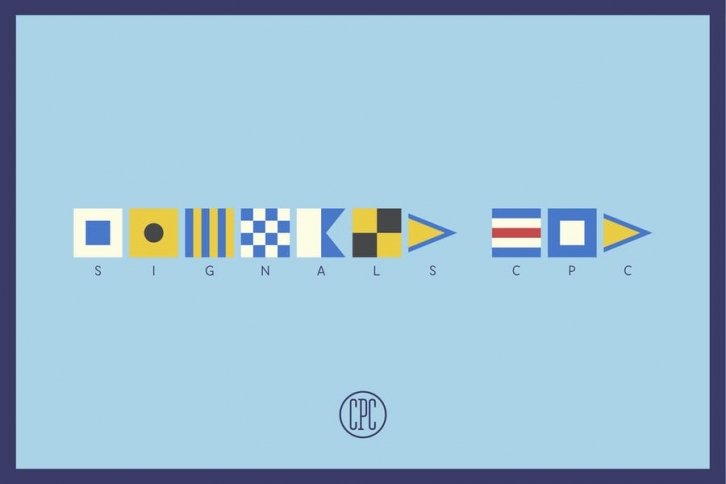
Signals CPC - Ready for your maritime adventures.
The maritime signal flags are used for international communication while at sea. They have historical significance with a classic, iconic look. This font development challenged me to learn how to draw all the flags with code. It is a fun color font with a halftone fallback.
- Calm and Wavy Style Flags
- Clean, Sun Faded, Vintage Colorways
- Letter Flags
- Number NATO & ICS Flags
OpenType Features:
- ICS Number Flags - Standard & Stylistic Alternates
- Phonetic Flag Names (e.g. “Whiskeyâ€) - Discretionary Ligatures
- Substitute/Repeater Flags - Standard Ligatures
- Answer & Code Flags - Standard Ligatures
- White, Blue, Red, Yellow, & Black Color Flags - Standard Ligatures
Ideas for Usage:
- Learning to communicate with other seafarers using flags.
- Keeping secrets away from landlubbers.
- Branding for your sea-worthy company or restaurant.
- Simple and elegant labels.
- Apparel (e.g. hats, shirts, tote bags)